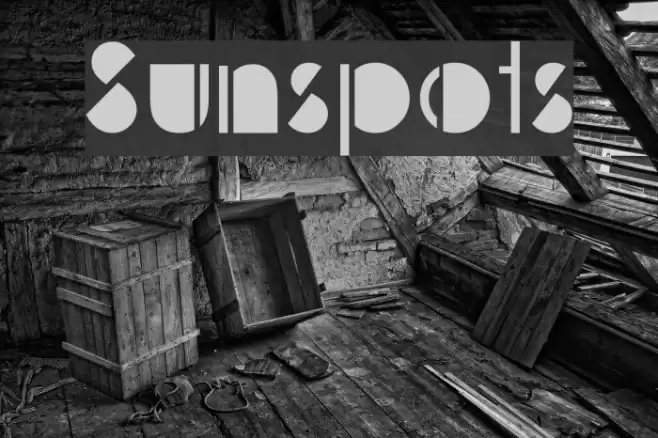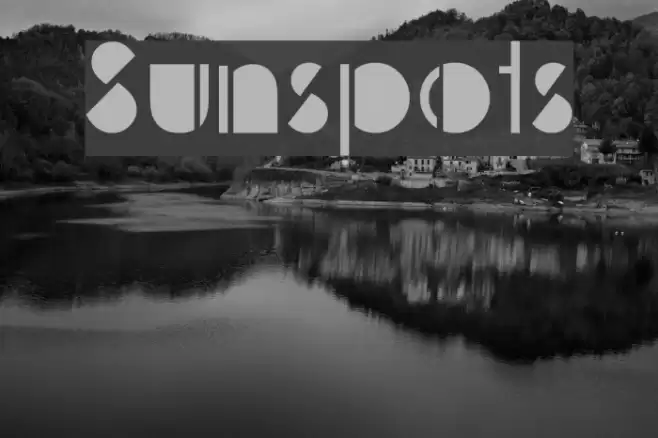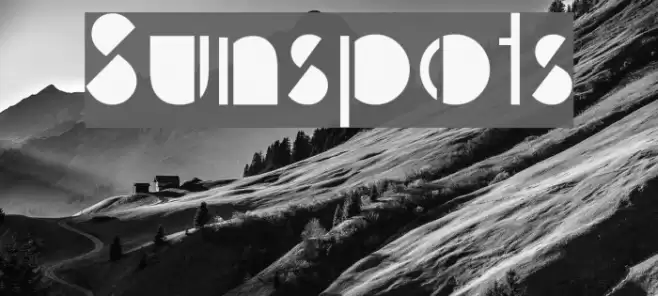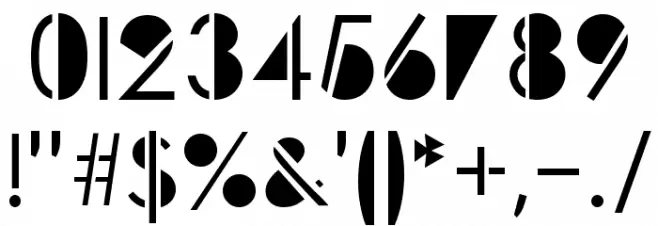
Sunspots Font
Sunspots Description
This font features a bold and geometric style with a modern flair. Each character is crafted with unique cutouts and angles, creating a dynamic and visually striking appearance. The uppercase letters are particularly angular, while the lowercase letters maintain a more rounded form, offering a nice contrast. Numbers and special characters follow the same geometric theme, making the font cohesive across all elements. The design is highly stylized, making it ideal for projects that require a strong visual impact.
A bold, geometric font with angular and dynamic character designs from Uncategorized fonts.
- Proposed Projects: Ideal for branding, poster design, album covers, and any project needing a modern, eye-catching typeface.